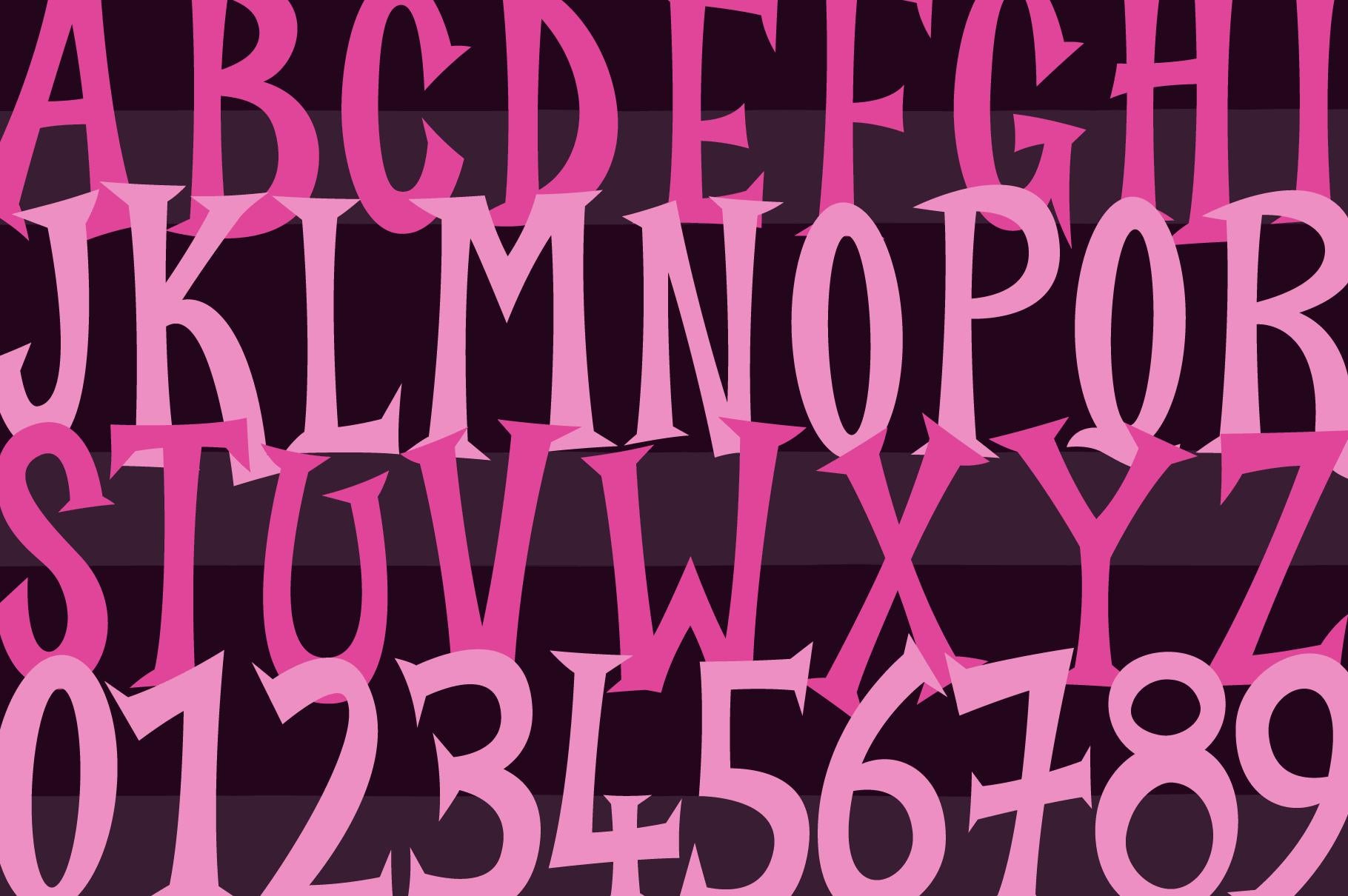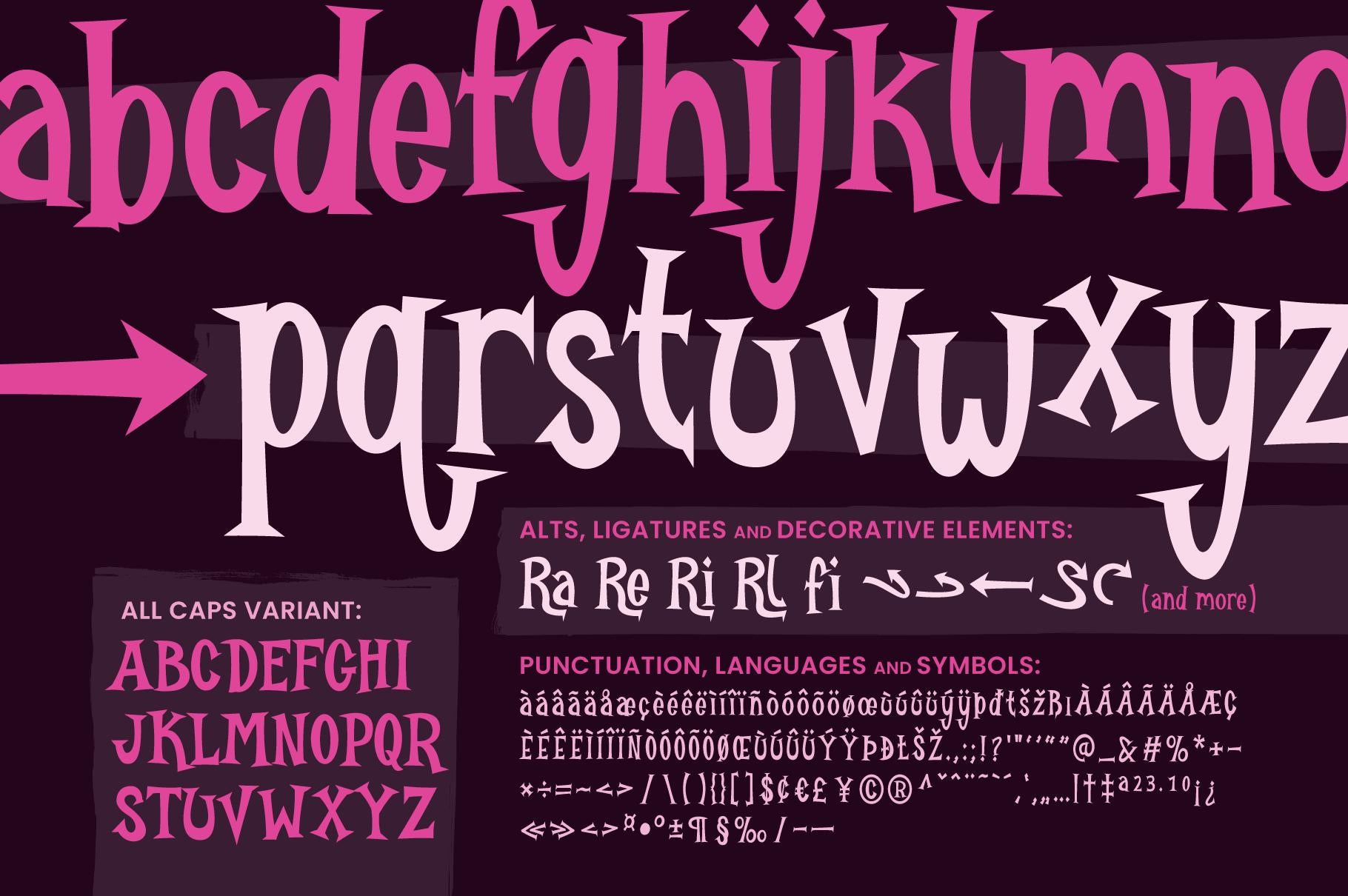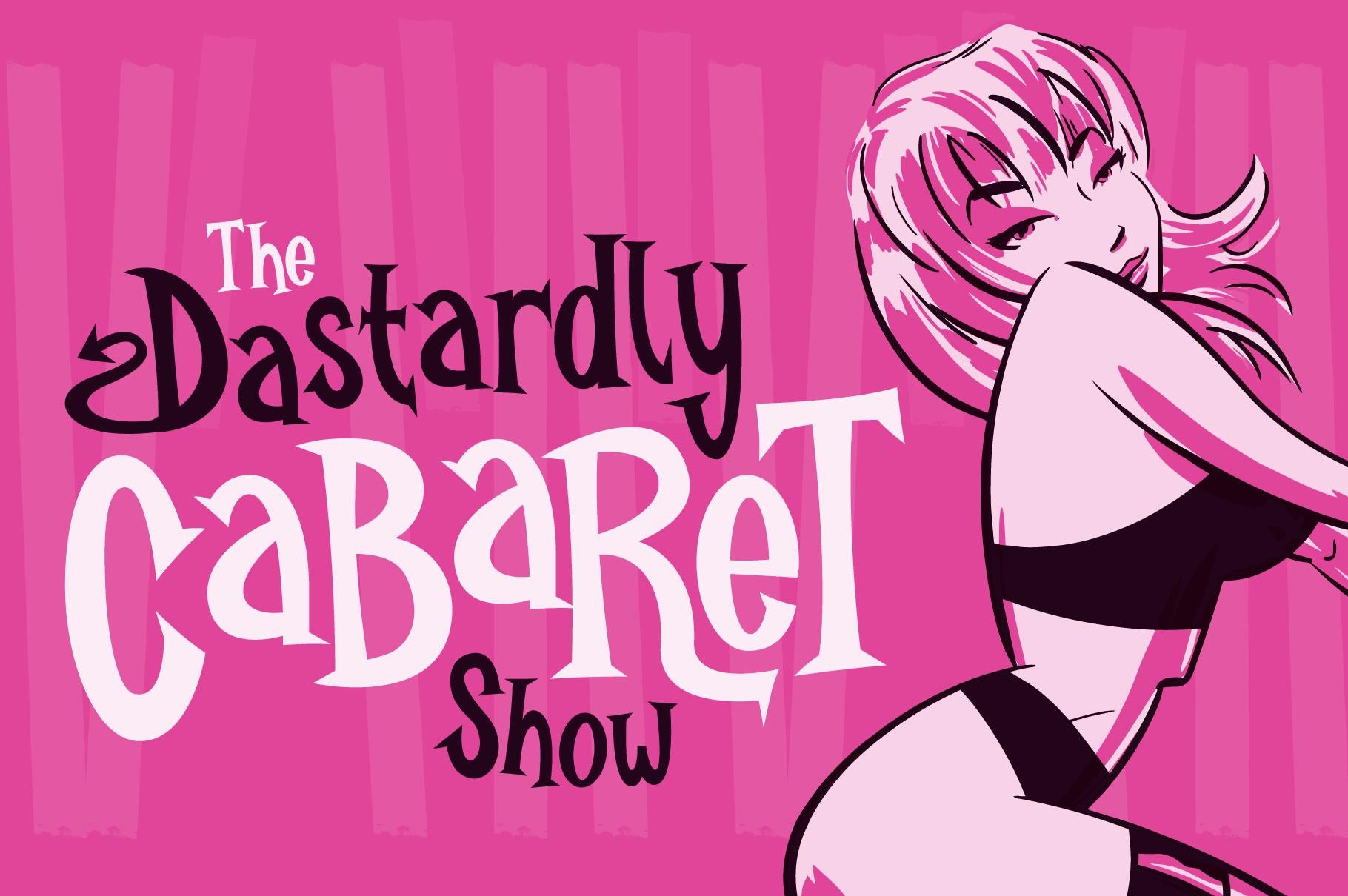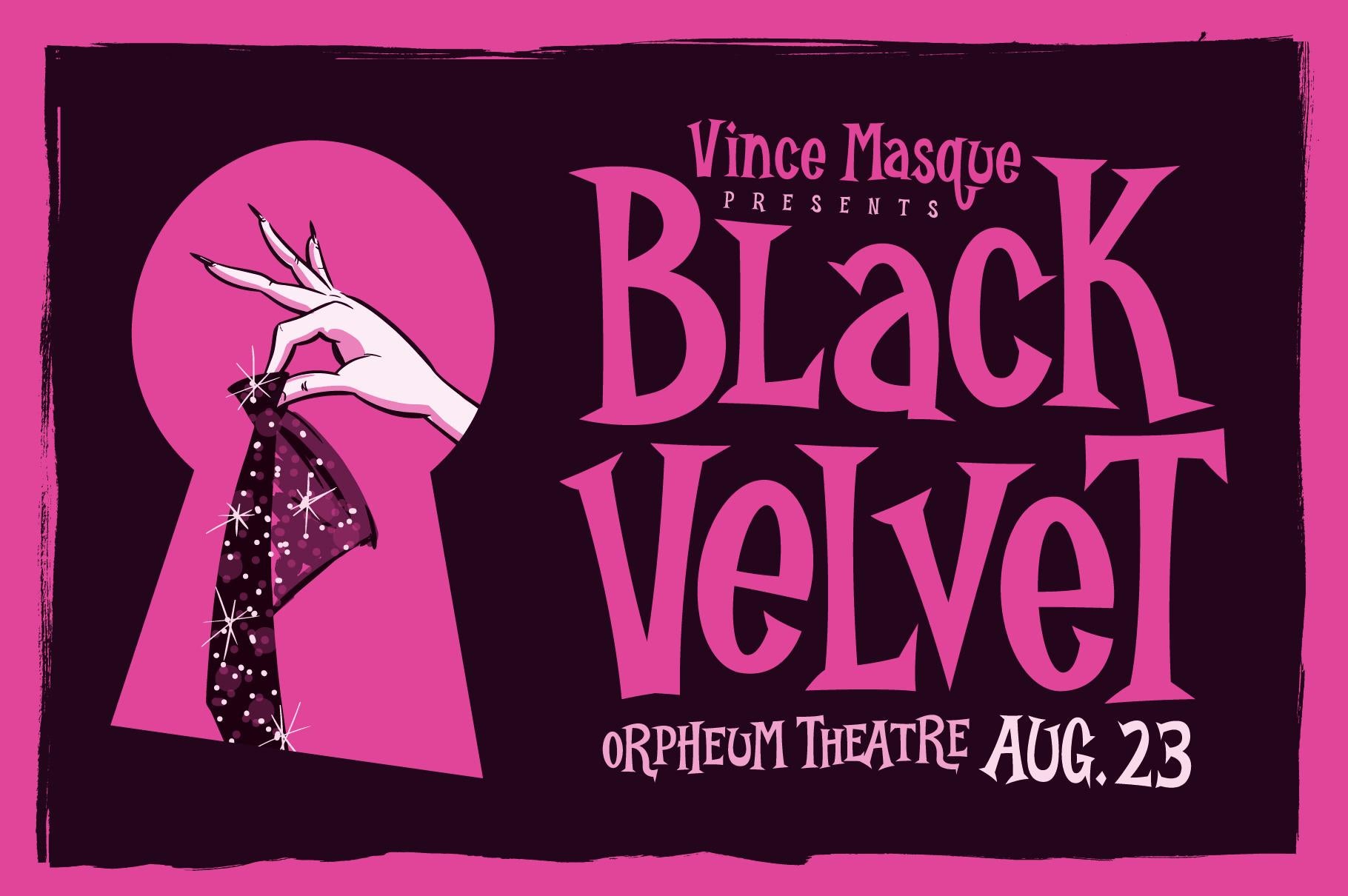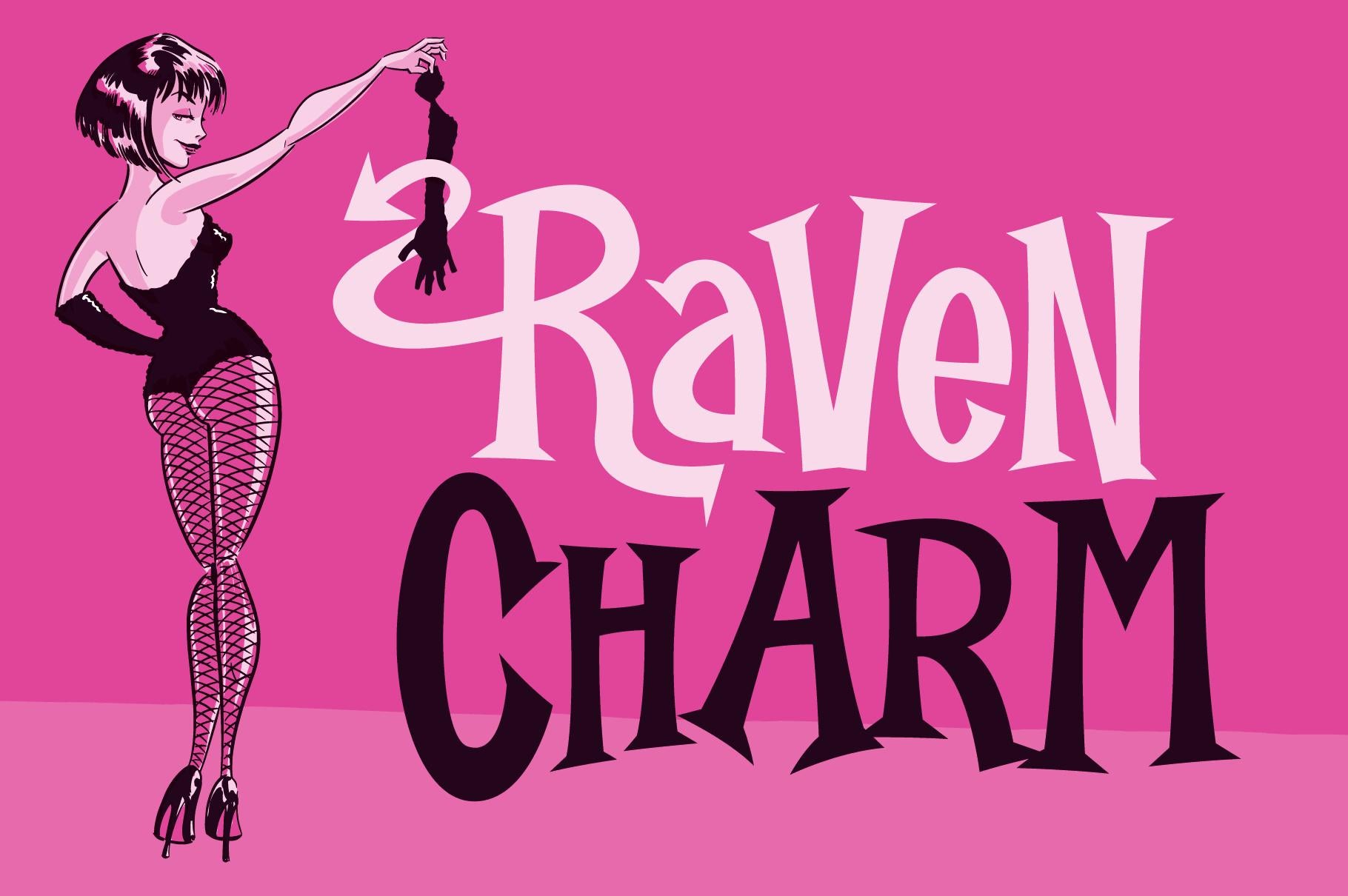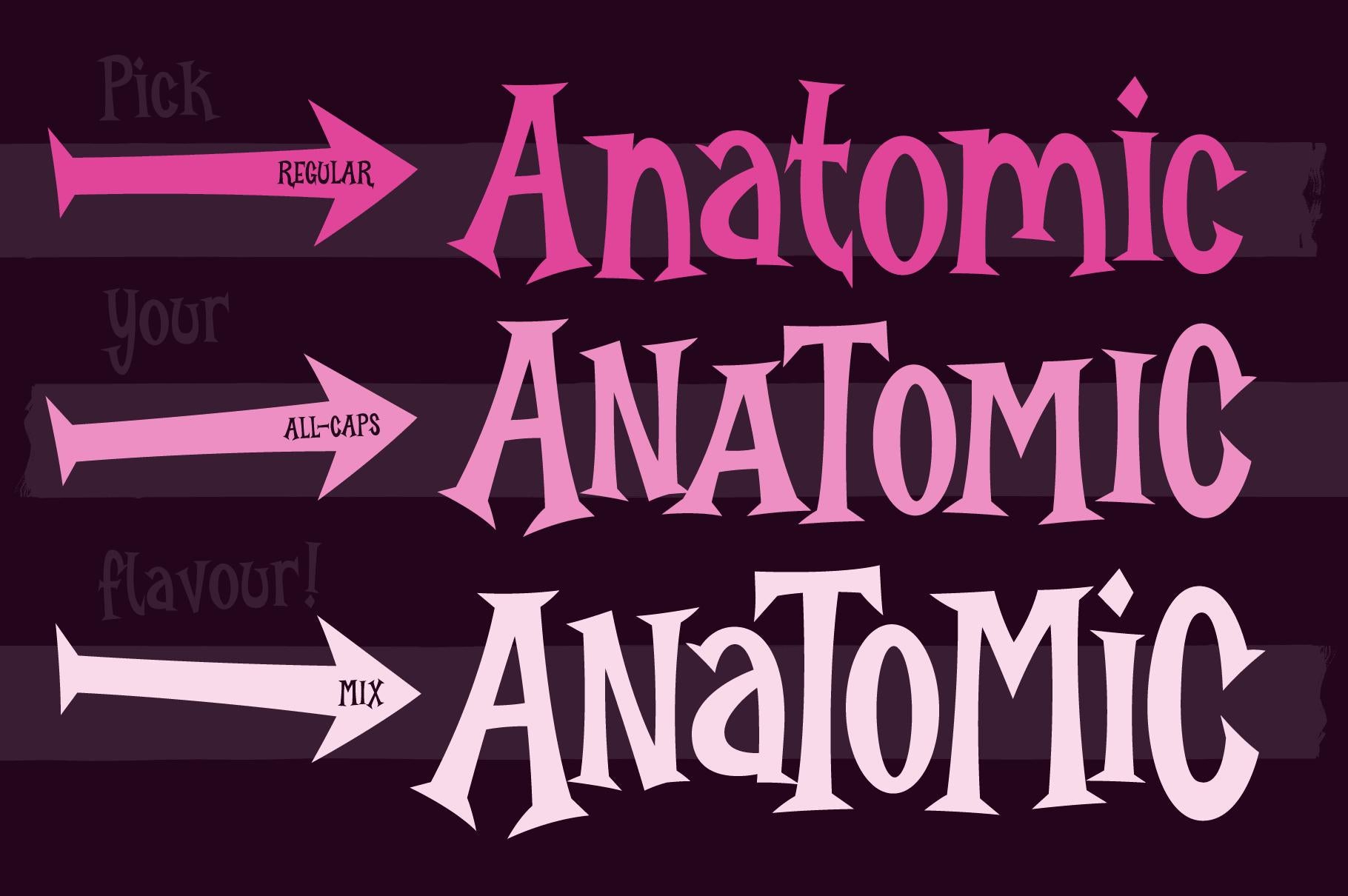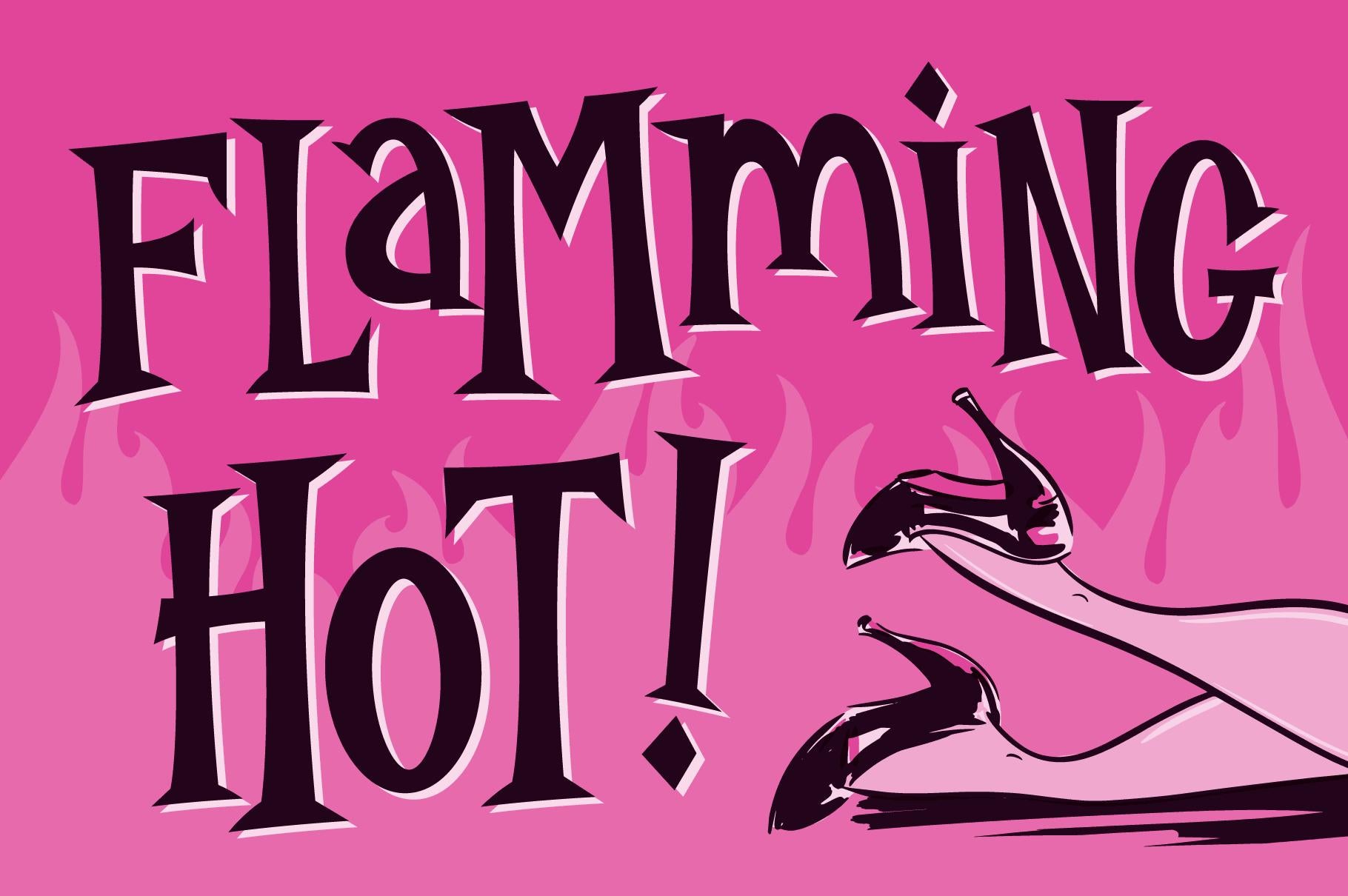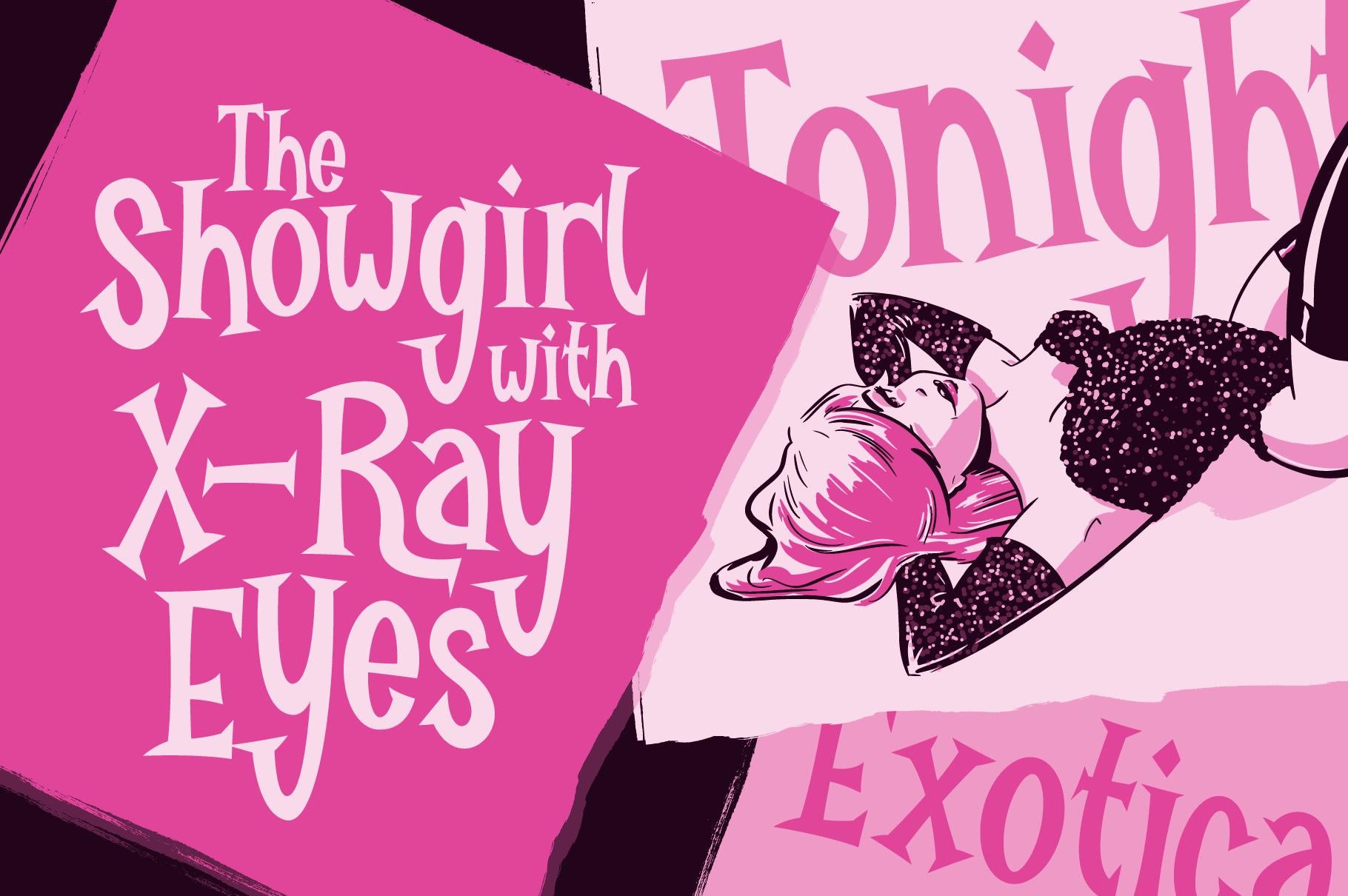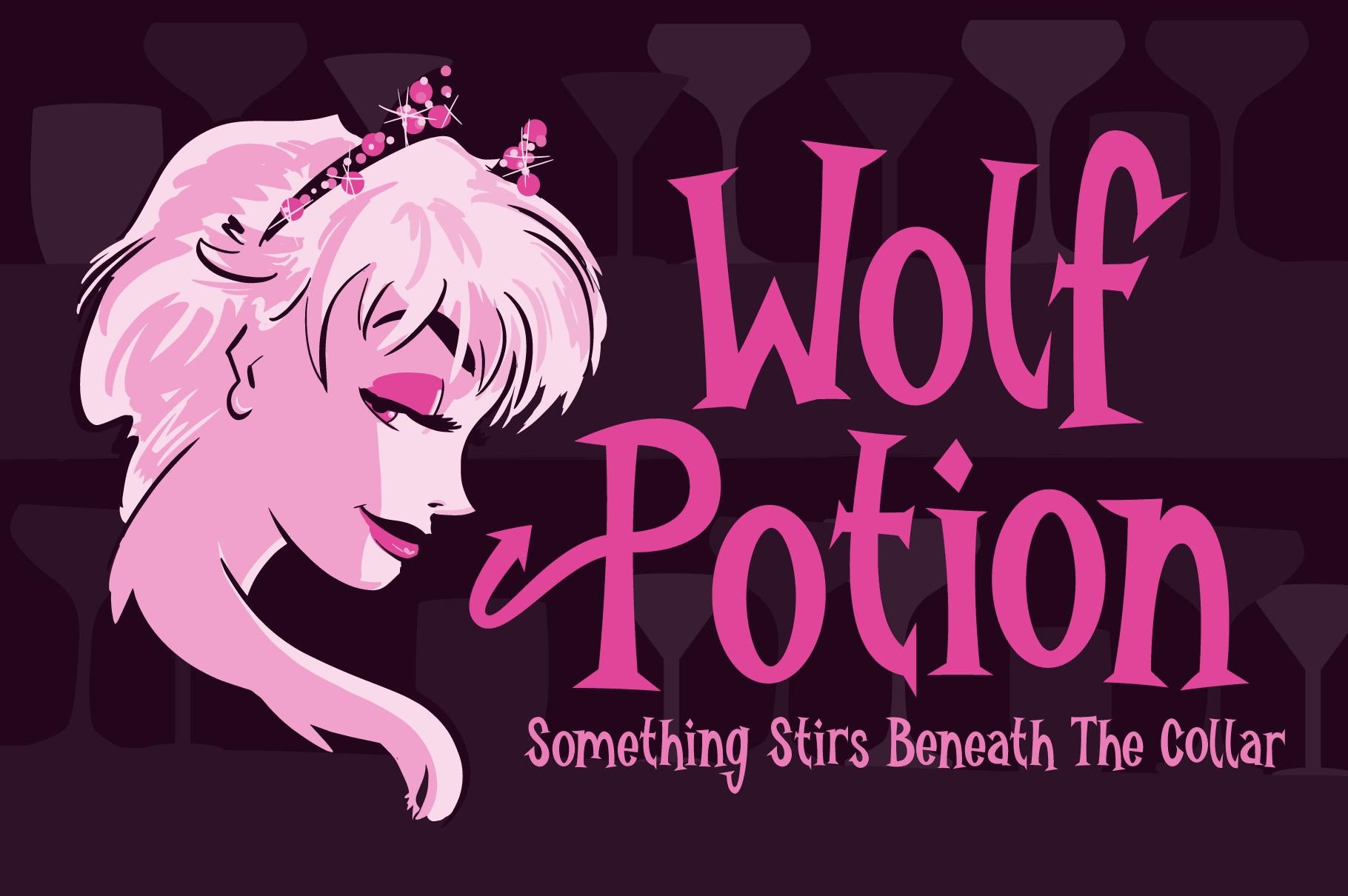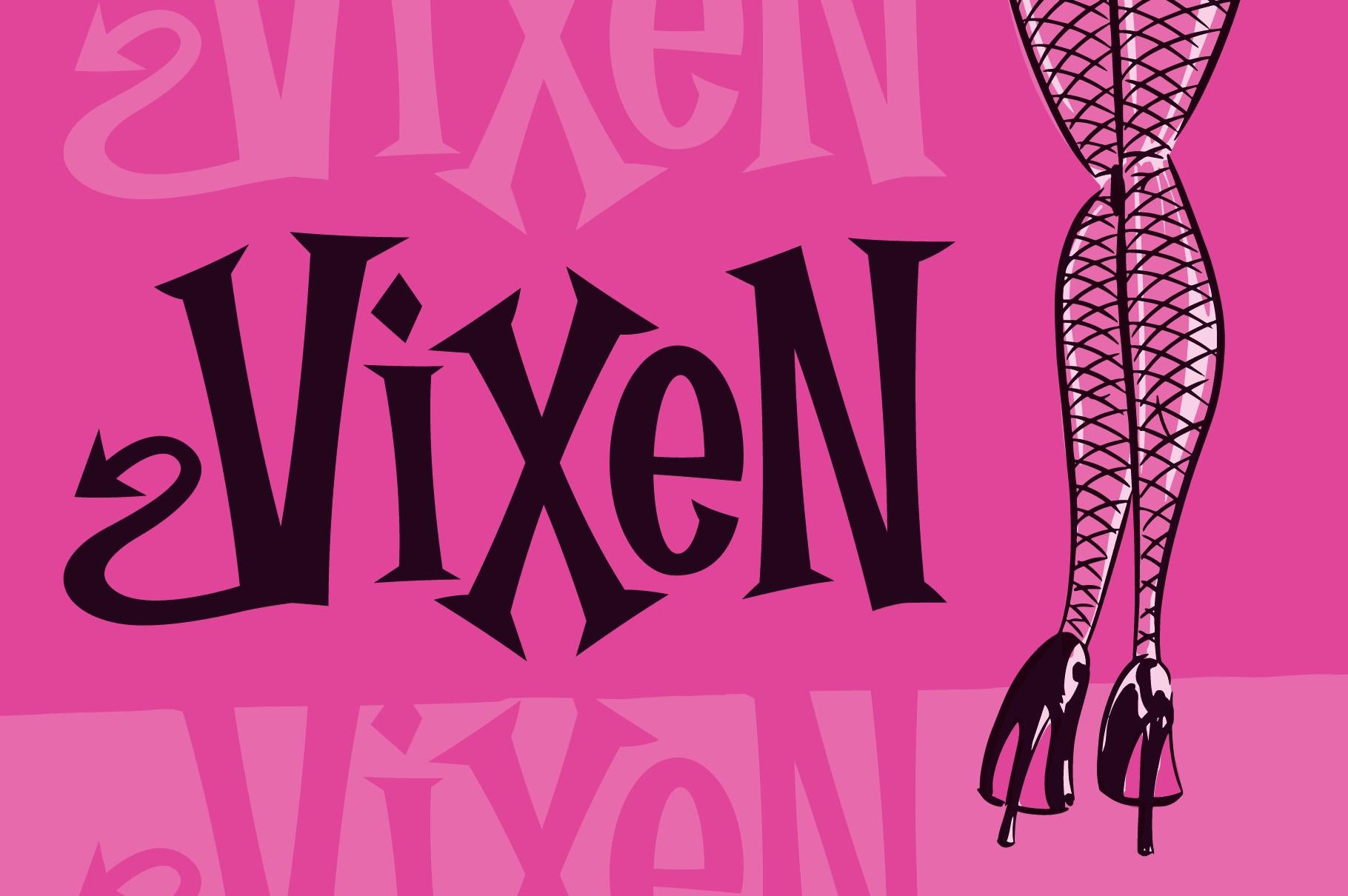
Burlexa: A Devilishly Good Serif Font
Burlexa is a serif font family that features a Regular style and an All-Caps alternative, both offering upper and lowercase letters, numerals, and multi-language support. It includes custom ligatures and decorative capitals with preset 'devil tails,' available in OTF, TTF, and WOFF formats.